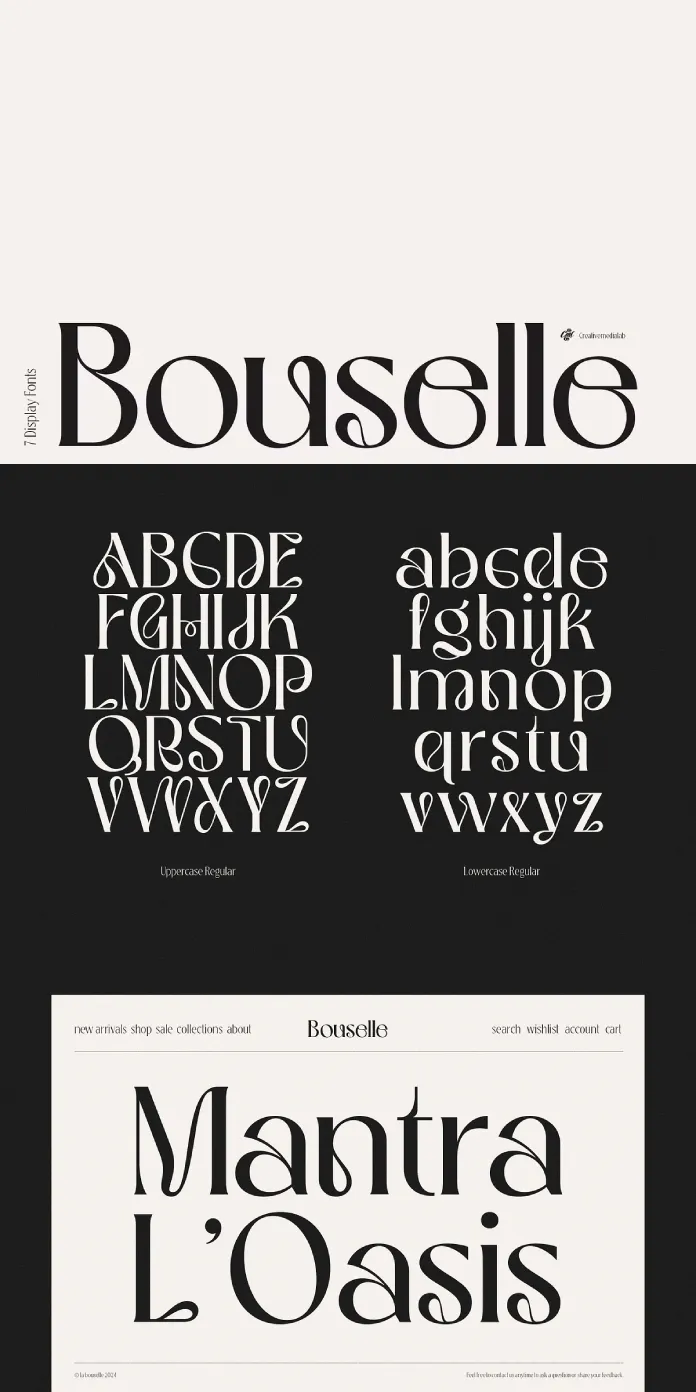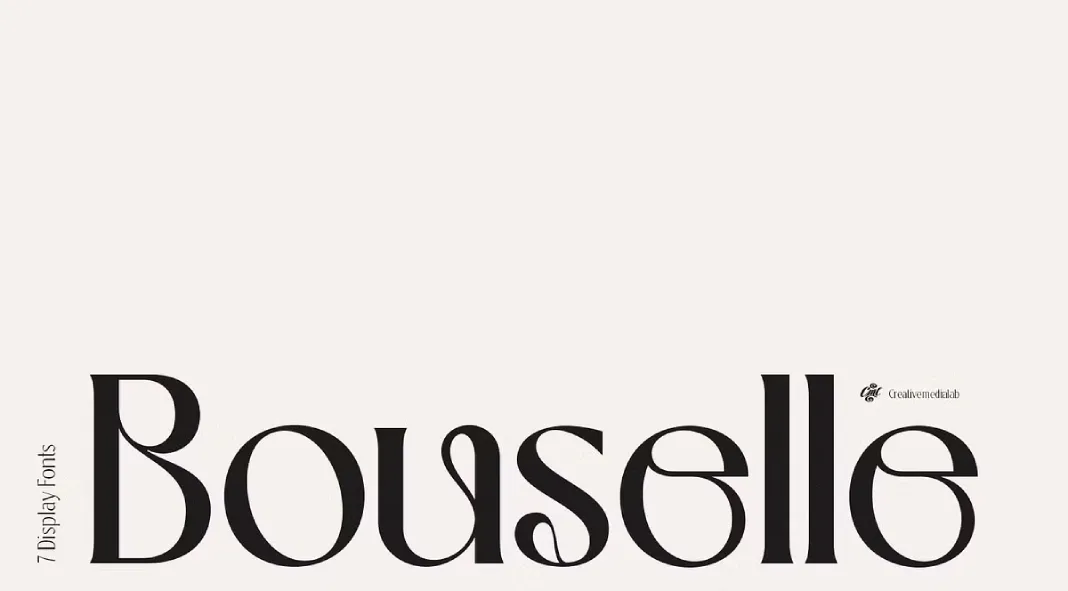
Take a look at Bouselle, the latest masterpiece by Creativemedialab. This font stands as a testament to the harmonious blend of modern design with a nostalgic nod to the 70s. As a serif typeface, Bouselle is both versatile and striking, making it an exceptional choice for a wide range of design projects.
Bouselle is imbued with the spirit of the psychedelic era, a time characterized by bold experimentation and creative freedom. This influence is evident in the font’s flexible curved lines, which infuse each character with a unique sense of movement and dynamism. The elegance of traditional serif fonts is maintained, but Bouselle transcends the ordinary by incorporating elements that evoke the vibrant and eclectic aesthetics of the 70s.
The font’s design is particularly effective in titles and headers, where its distinctive features can be fully appreciated. The smooth curves and stylish serifs draw the eye, creating a compelling visual hierarchy that commands attention. Whether used in print or digital media, Bouselle ensures that your text will stand out, leaving a lasting impression on your audience.
Moreover, Bouselle pairs beautifully with the True Sage serif. The combination of these two fonts creates a sophisticated contrast, enhancing the overall design while maintaining readability and aesthetic appeal. This pairing is ideal for projects that require a touch of elegance and a hint of vintage charm, such as branding, editorial design, and high-end product packaging.
In addition to its visual appeal, Bouselle is designed with usability in mind. It includes a range of weights and styles, allowing designers to experiment with different looks and feels. This flexibility makes Bouselle a valuable addition to any typographic toolkit.
Key Features of Bouselle:
- Modern Serif with a 70s Influence: Merges contemporary design with retro inspiration.
- Flexible Curved Lines: Adds a unique, flowing character to each letter.
- Perfect for Titles and Headers: Ensures your text stands out and captures attention.
- Pairs Well with True Sage Serif: Offers a sophisticated and harmonious typographic combination.
- Versatile and Usable: Available in multiple weights and styles for diverse design needs.
To sum it up, Bouselle by Creativemedialab is more than just a good-looking display typeface; it is a bridge between the past and present, bringing the essence of the 70s into the modern era. Its elegant curves and distinctive style make it a standout choice for any designer looking to add a touch of retro sophistication to their work. Embrace the psychedelic elegance of Bouselle and elevate your designs to new heights.